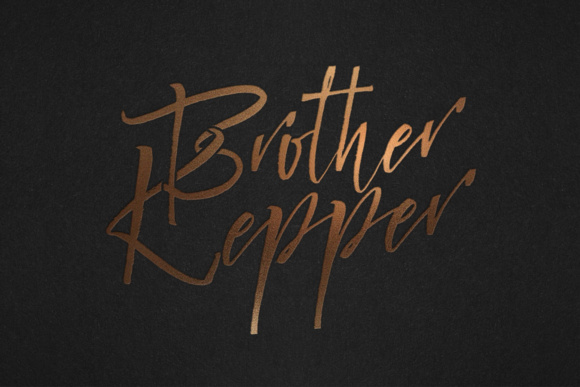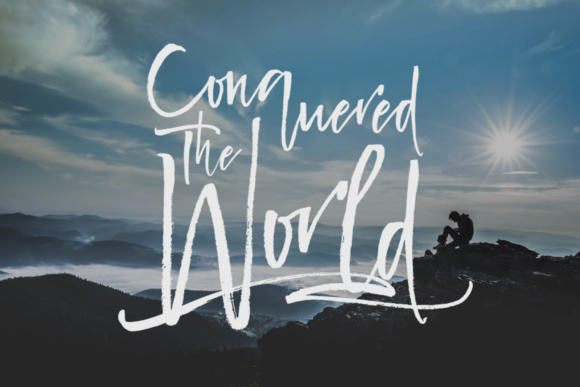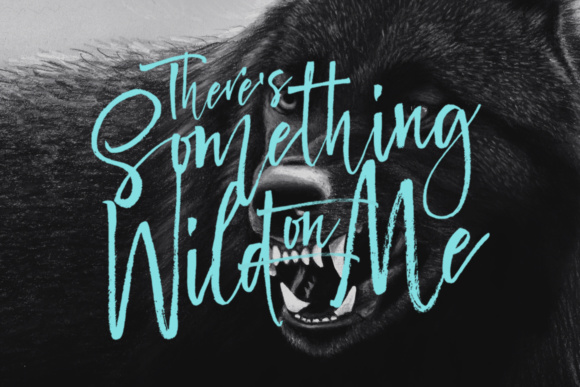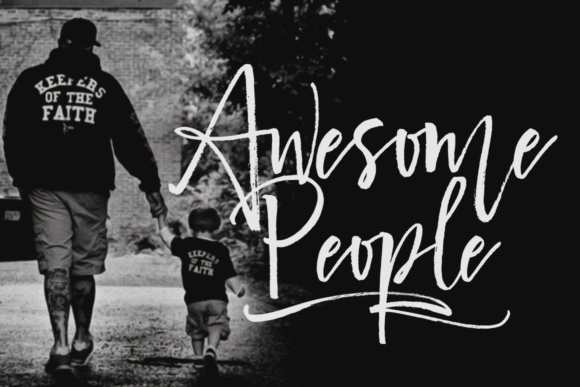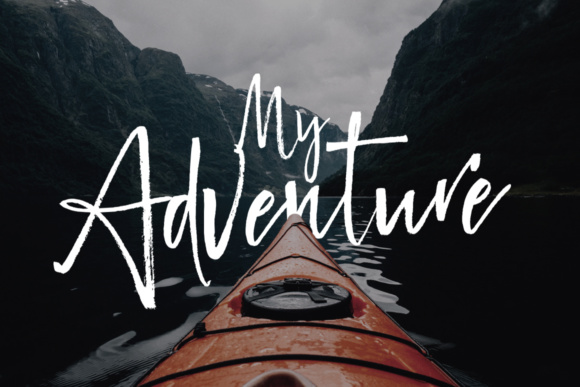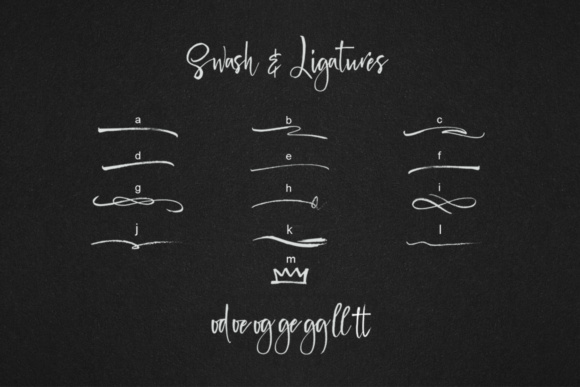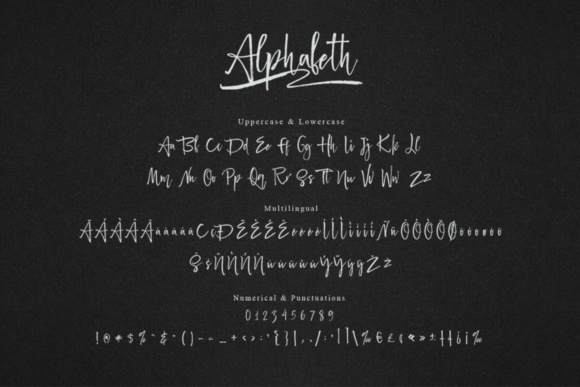
Him Font
About Him Font
Him is a hand-painted brush script. It features bold, strong painted letters that have a modern, luxurious look & feel.
It works great in a large range of different projects, both professional business oriented projects as well as personal projects.